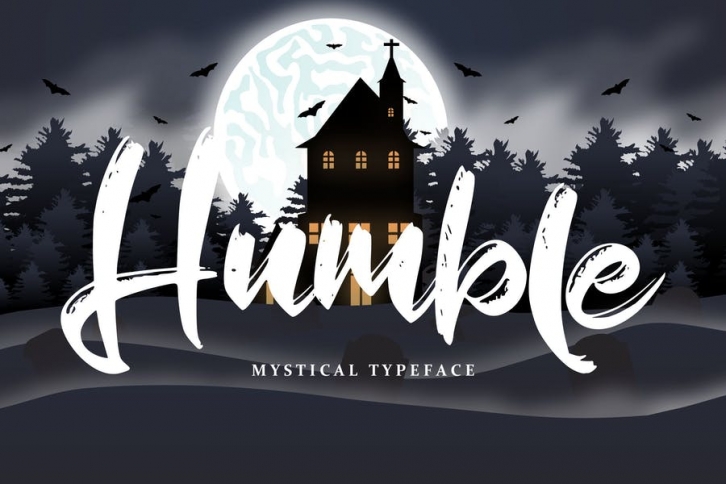
Humble | Mystical Typeface with a calligraphy style, So beautiful on invitation like greeting cards, branding materials, business cards, quotes, posters, and more!
- Alternates and Ligatures